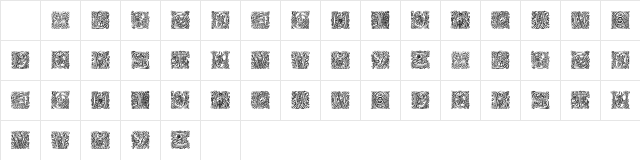
MasselleAMShadow Regular
Design Context for MasselleAMShadow Typeface
MasselleAMShadow brings ornamental detail and strong personality to headlines and identities, where visual impact matters more than quiet functionality.
Font Pairing: Pair with a clean neutral sans-serif for body copy to let MasselleAMShadow's character lead without overwhelming the composition.
Pro Tip: Treat MasselleAMShadow as the centrepiece of your typographic hierarchy. One strong heading set in a decorative face can carry an entire layout.